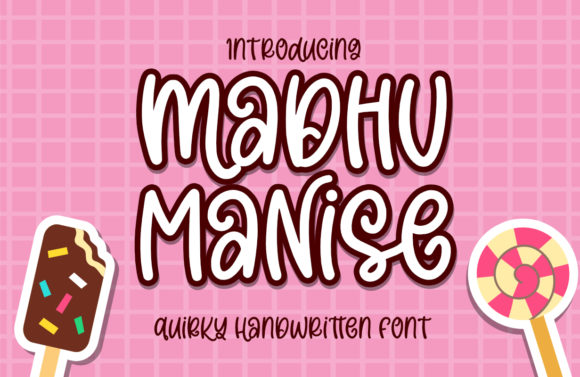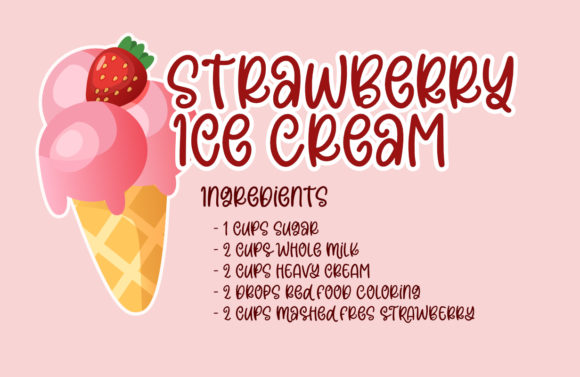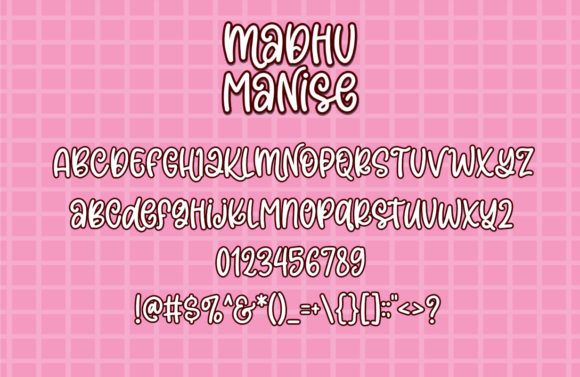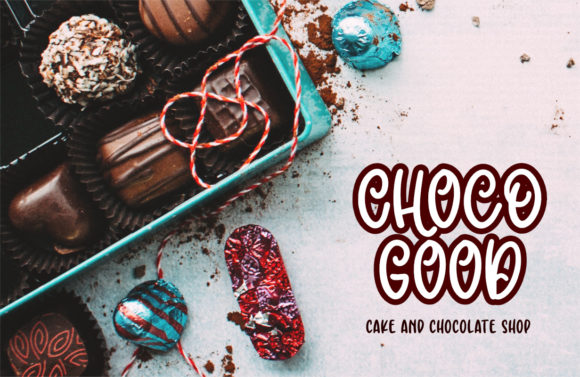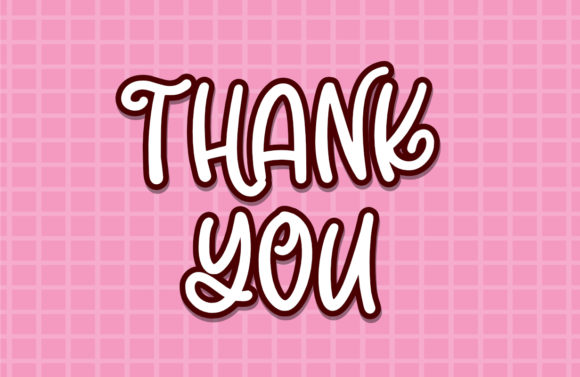
Madhu Manise Font
About Madhu Manise Font
Madhu Manise is a quirky and incredibly unique handwritten font. Its friendly feel makes this font versatile, fitting a wide range of contexts. Add it to your creative ideas and notice how it makes them stand out!